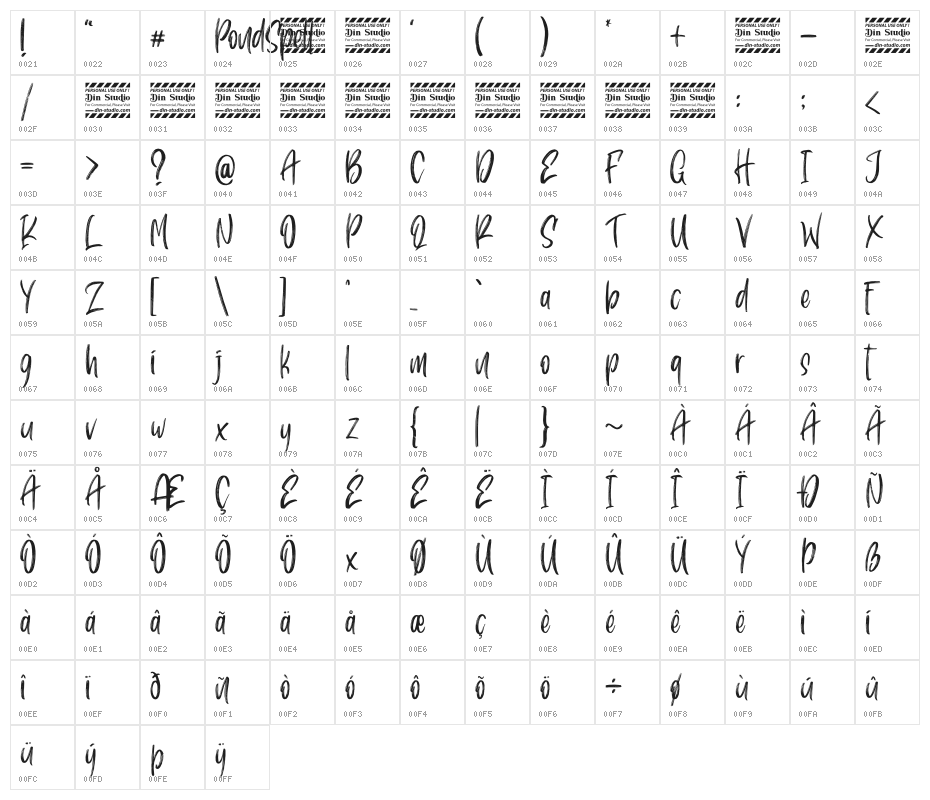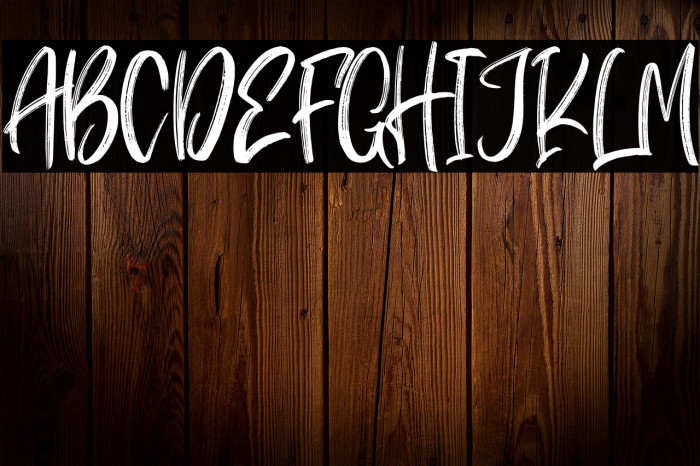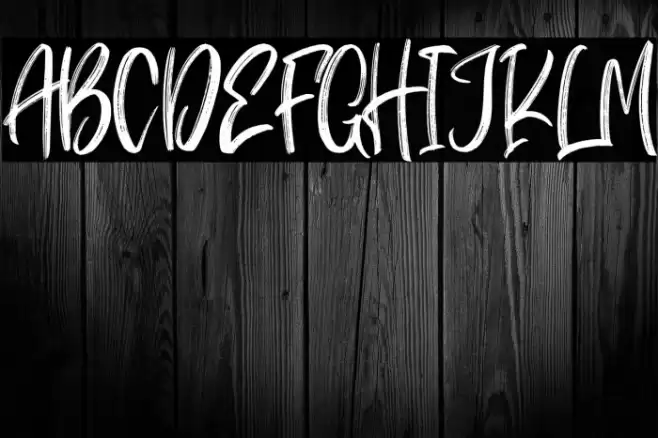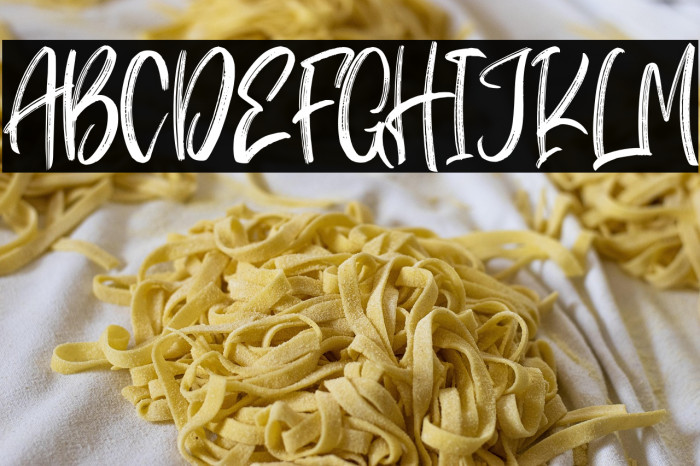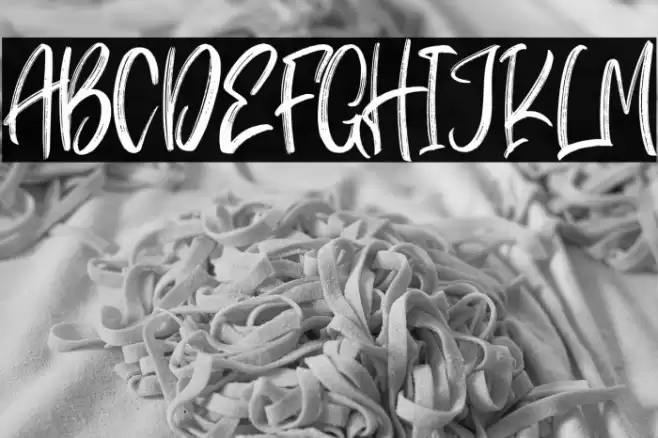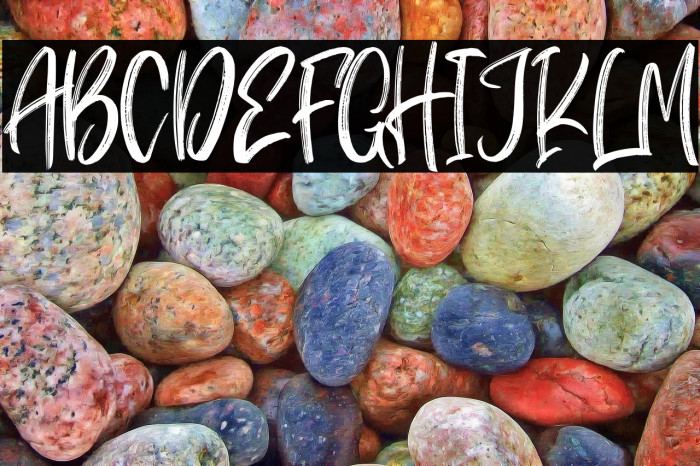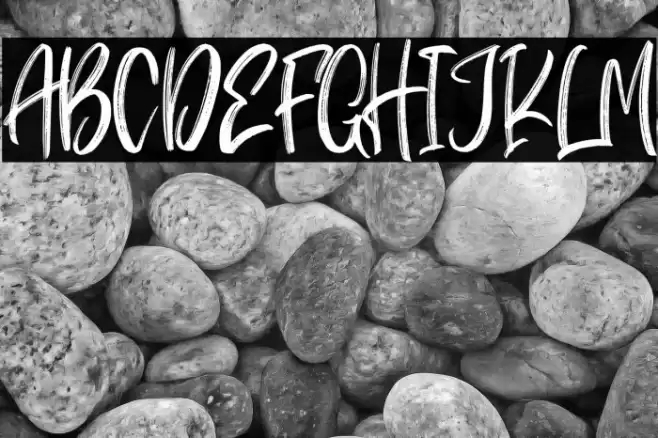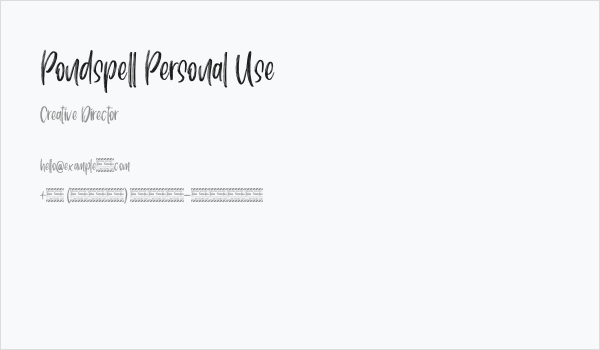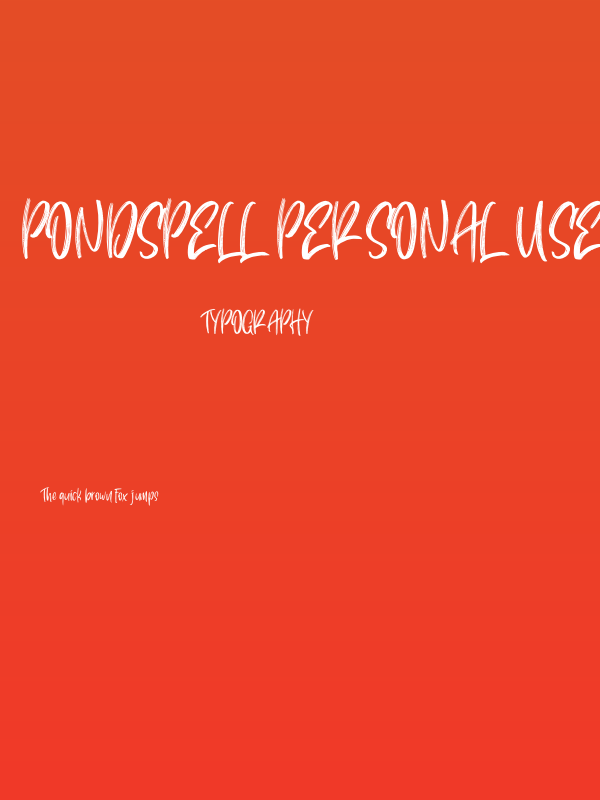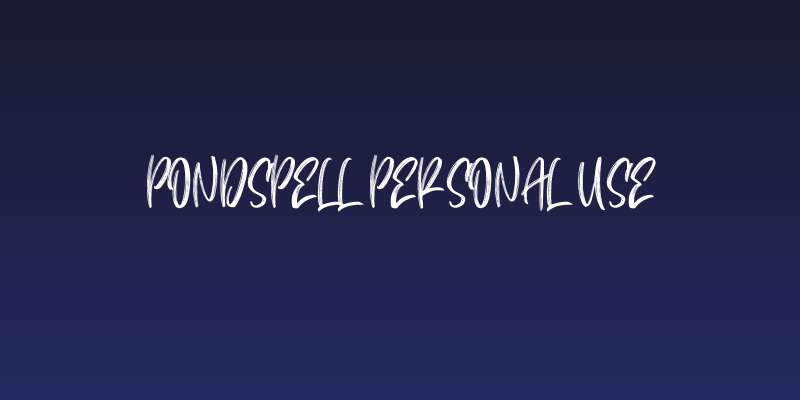
Pondspell Personal Use Font
Pondspell Personal Use Description
This font features a bold, expressive style with a hand-drawn appearance. The letters have a dynamic, brush-like quality, characterized by varying stroke widths that create a sense of movement and energy. The uppercase letters are tall and slightly condensed, while the lowercase letters maintain a consistent flow with a slightly more relaxed form. The font includes a full set of uppercase and lowercase letters, numbers, and a selection of special characters. Its artistic flair makes it suitable for creative projects that require a personal touch.
| Proposed Projects | Ideal for posters, branding, social media graphics, and creative projects that require a personal and artistic touch. |